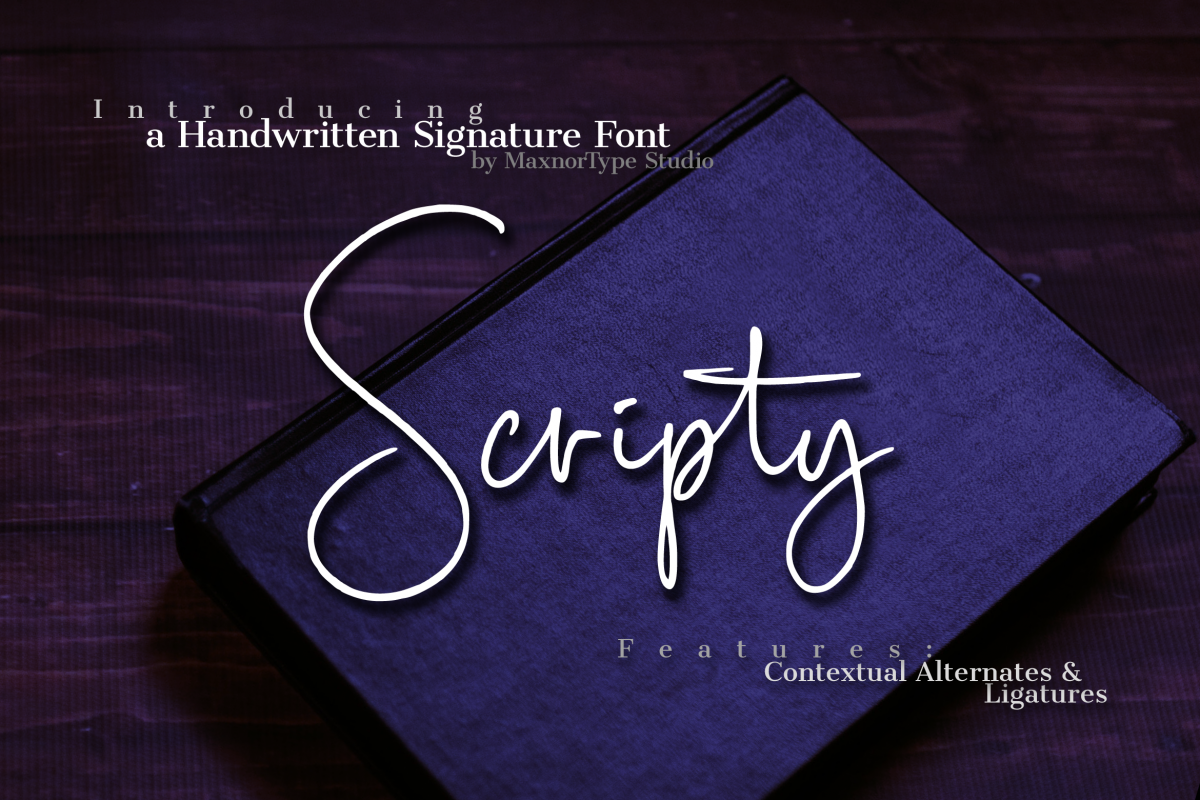
Scripty Handwritten Signature Font
Scripty Handwritten Signature Font - is a natural handwritten signature font. Its a natural look hand-made typography, with contextual alternates and ligatures.
Scripty font was made to make your text stand out, great for signatures, watermarks, logos, cards, creative products, and other creative works.